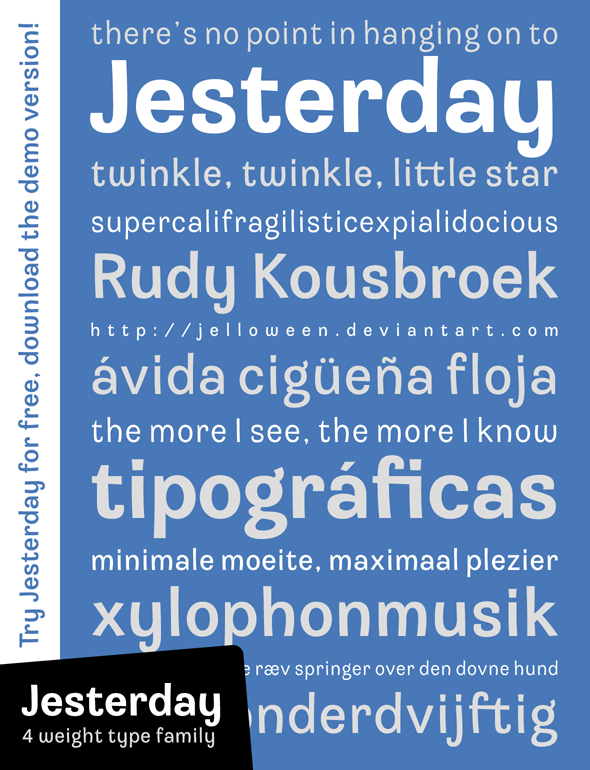
Font: JESTERDAY - demo by *jelloween is a Sans Serif typeface demo that lends a playful, yet professional look to your textual projects.
Don't mind the nonsense I put in the preview pic
Say hi to my new type family Jesterday!
It consists of 4 weights (light, regular, medium and bold), a broad range of accented characters and even some sexy ligatures, how about that
! I spent quite some time on it so I do hope you like it as much as I do.